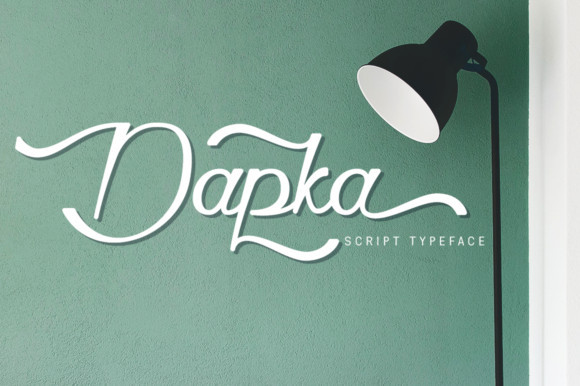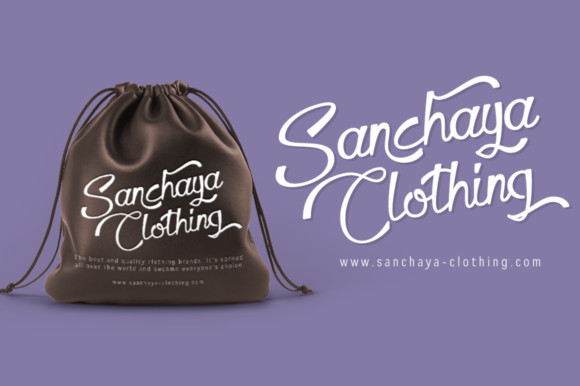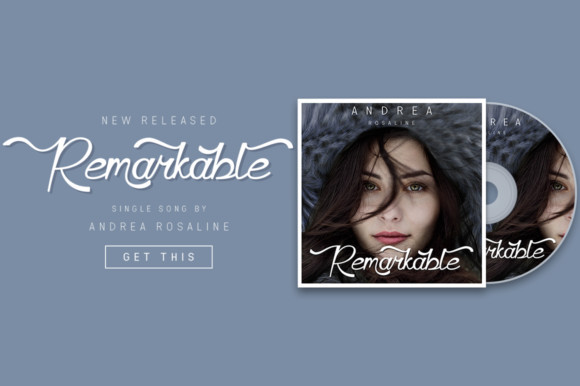
Dapka Font
Dapka is a unique calligraphic script. It offers beautiful typographic forms for a wide variety of design projects, including logos & branding, wedding designs, handwritten quotes, product packaging, headers, posters, merchandise, social media & greeting cards, and much more!